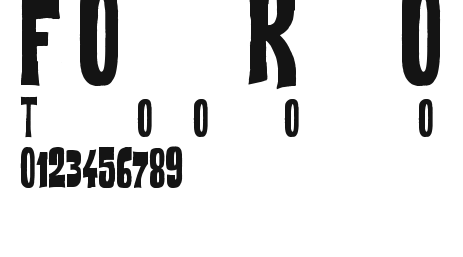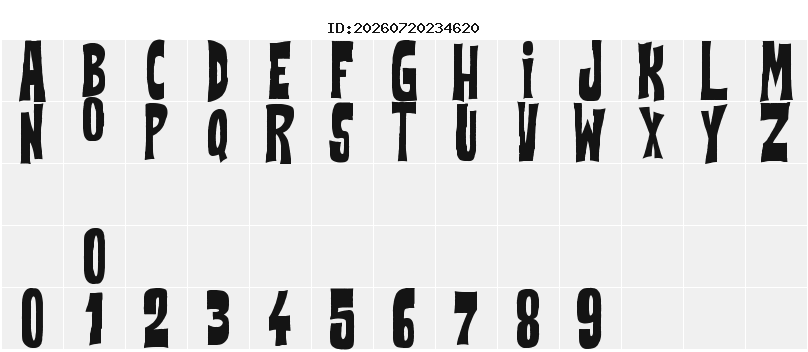
• Font Name: Flowers Kingdom
• Full Font Name: Flowers Kingdom
• Designer: IMAGEX
About Flowers Kingdom.ttf
Flowers Kingdom.ttf is a modern, elegant sans-serif font designed for ultimate readability and visual harmony. Perfect for branding, headlines, web design, and print materials.